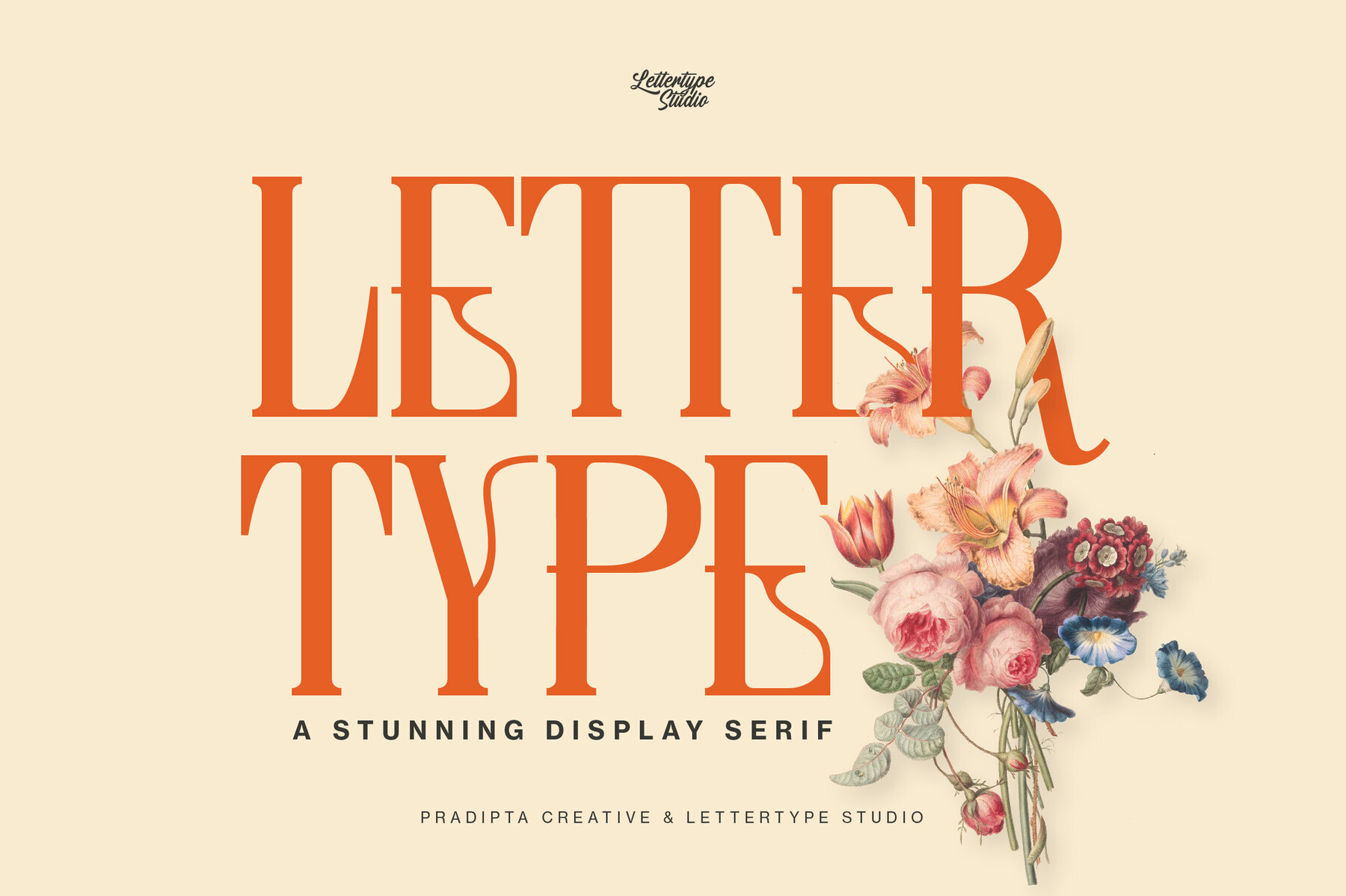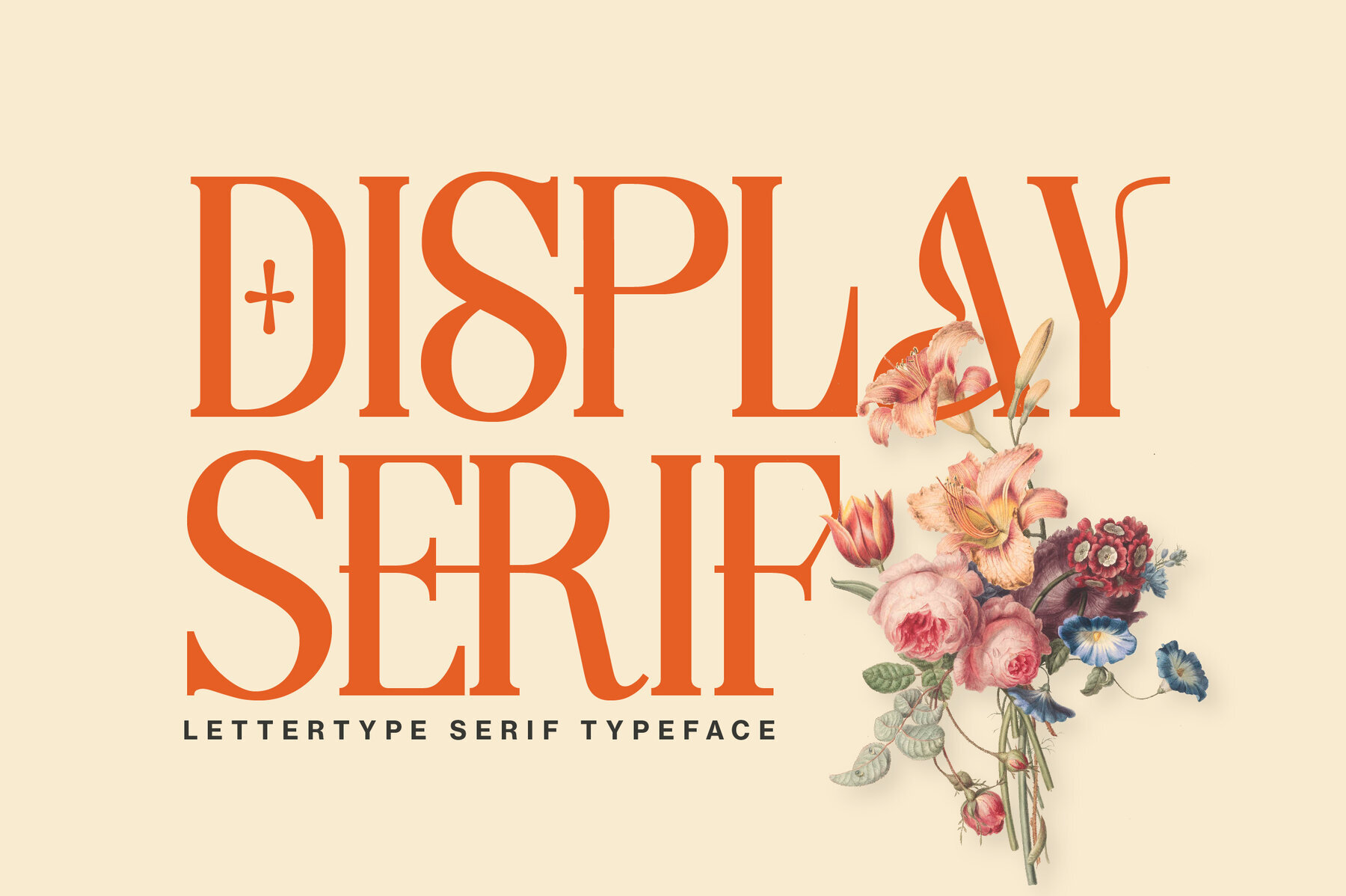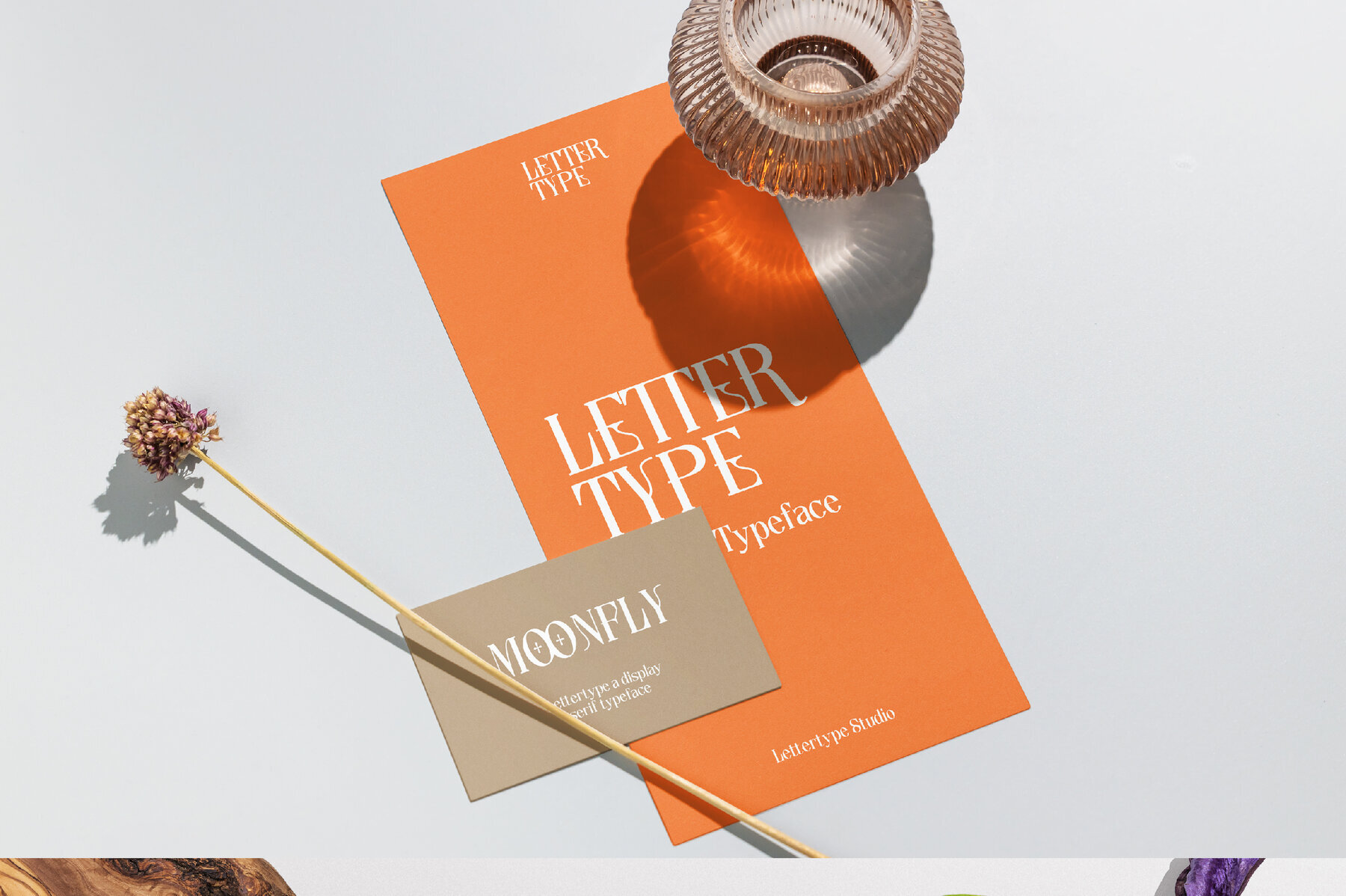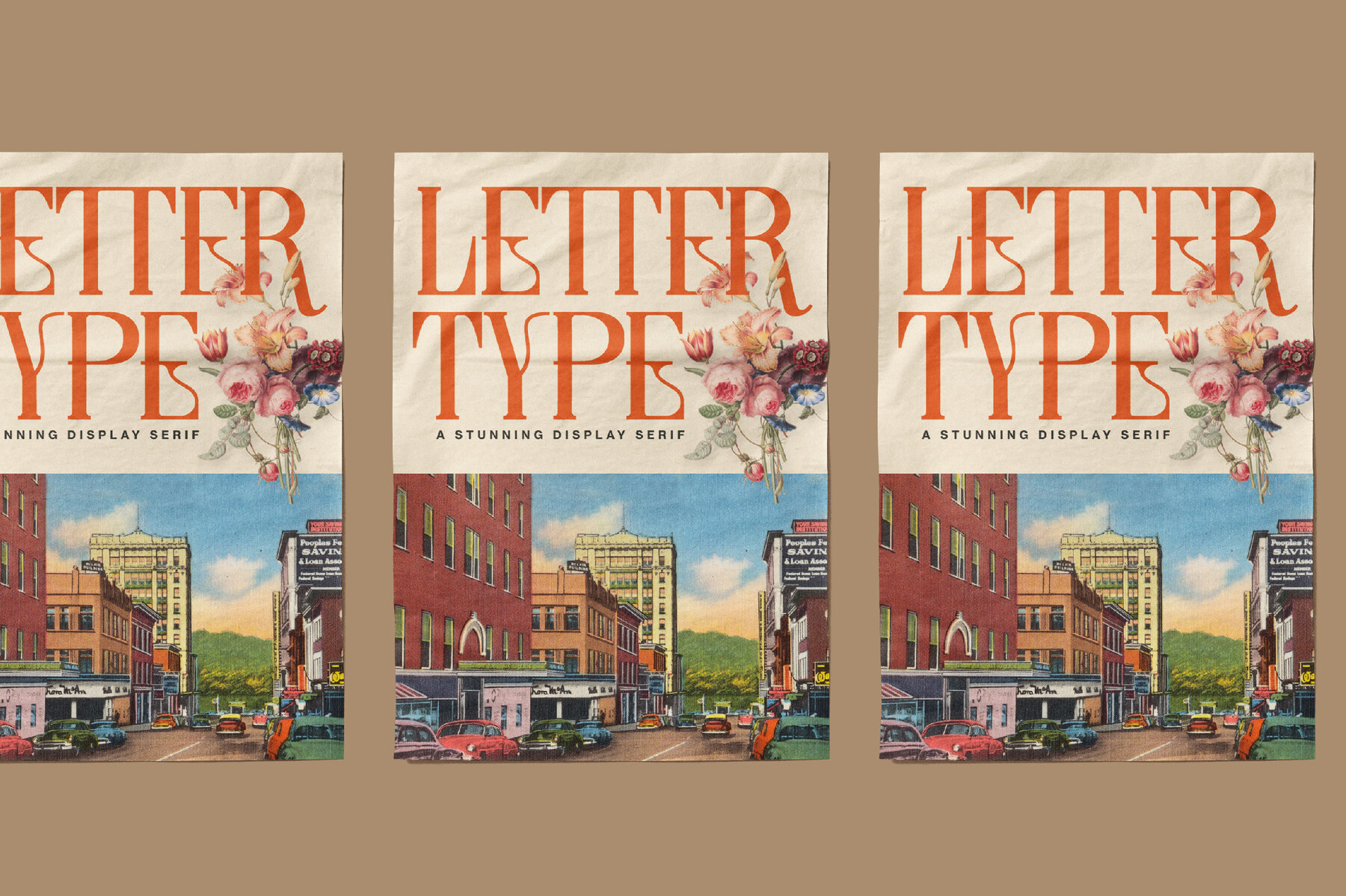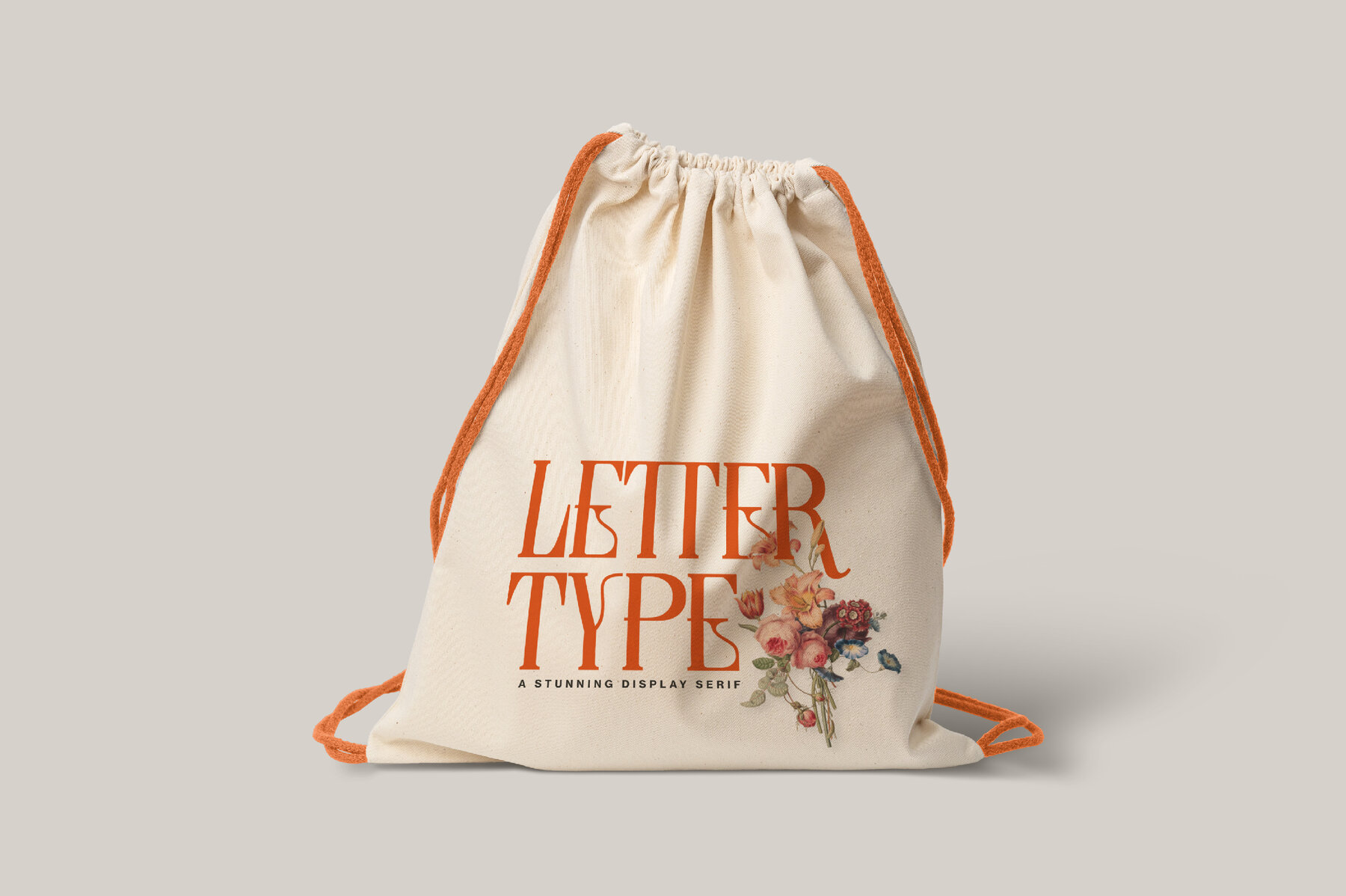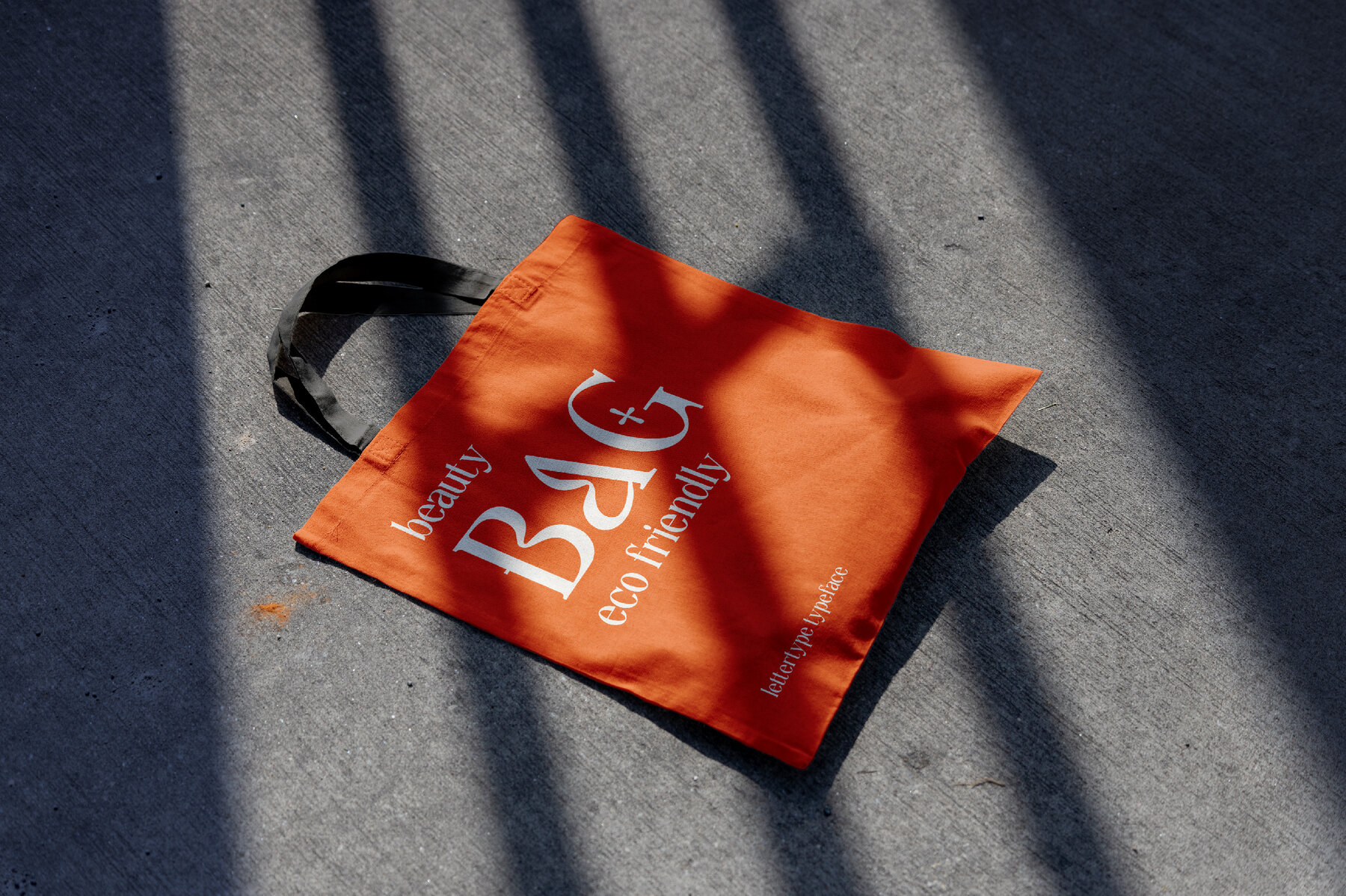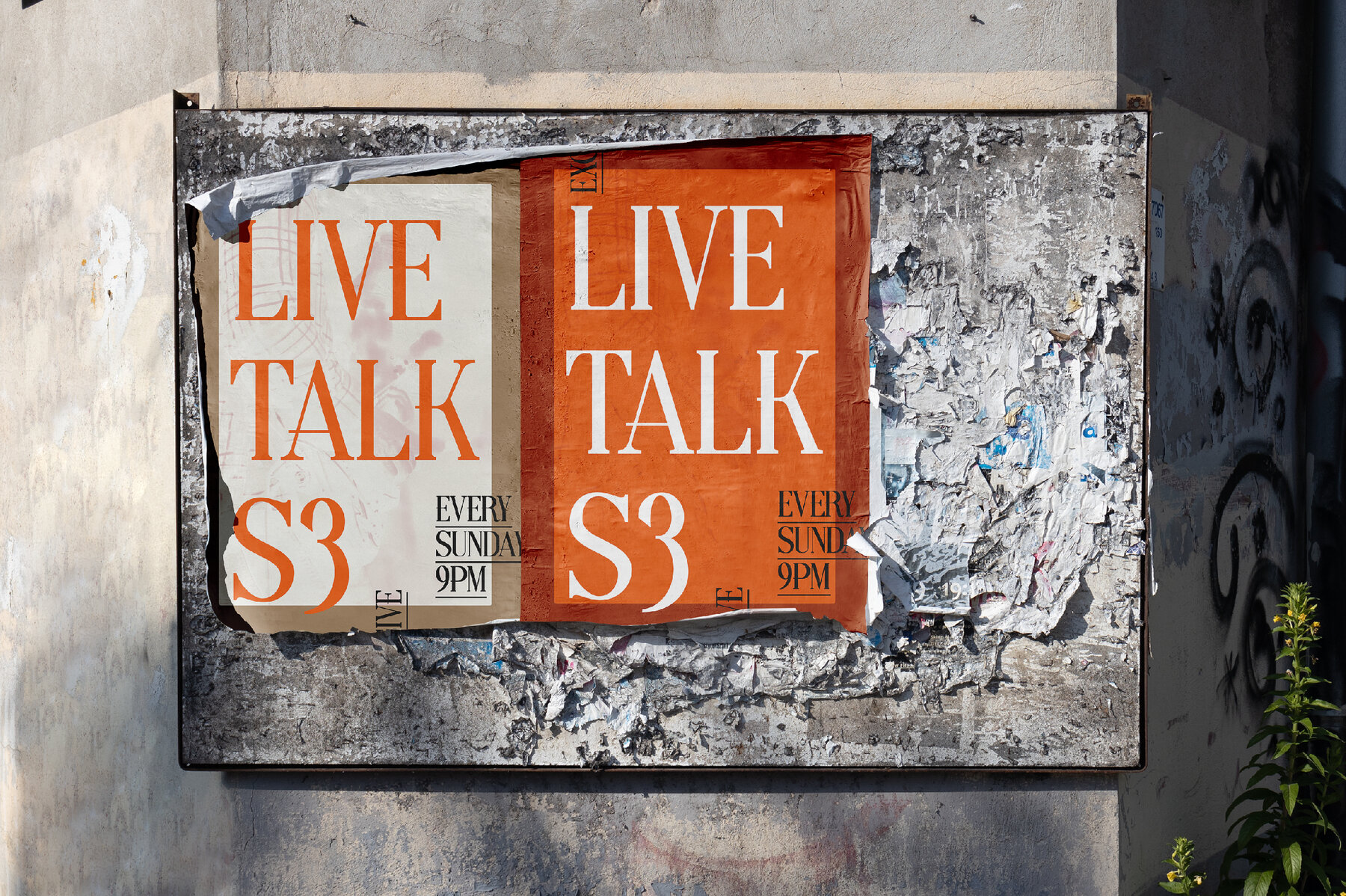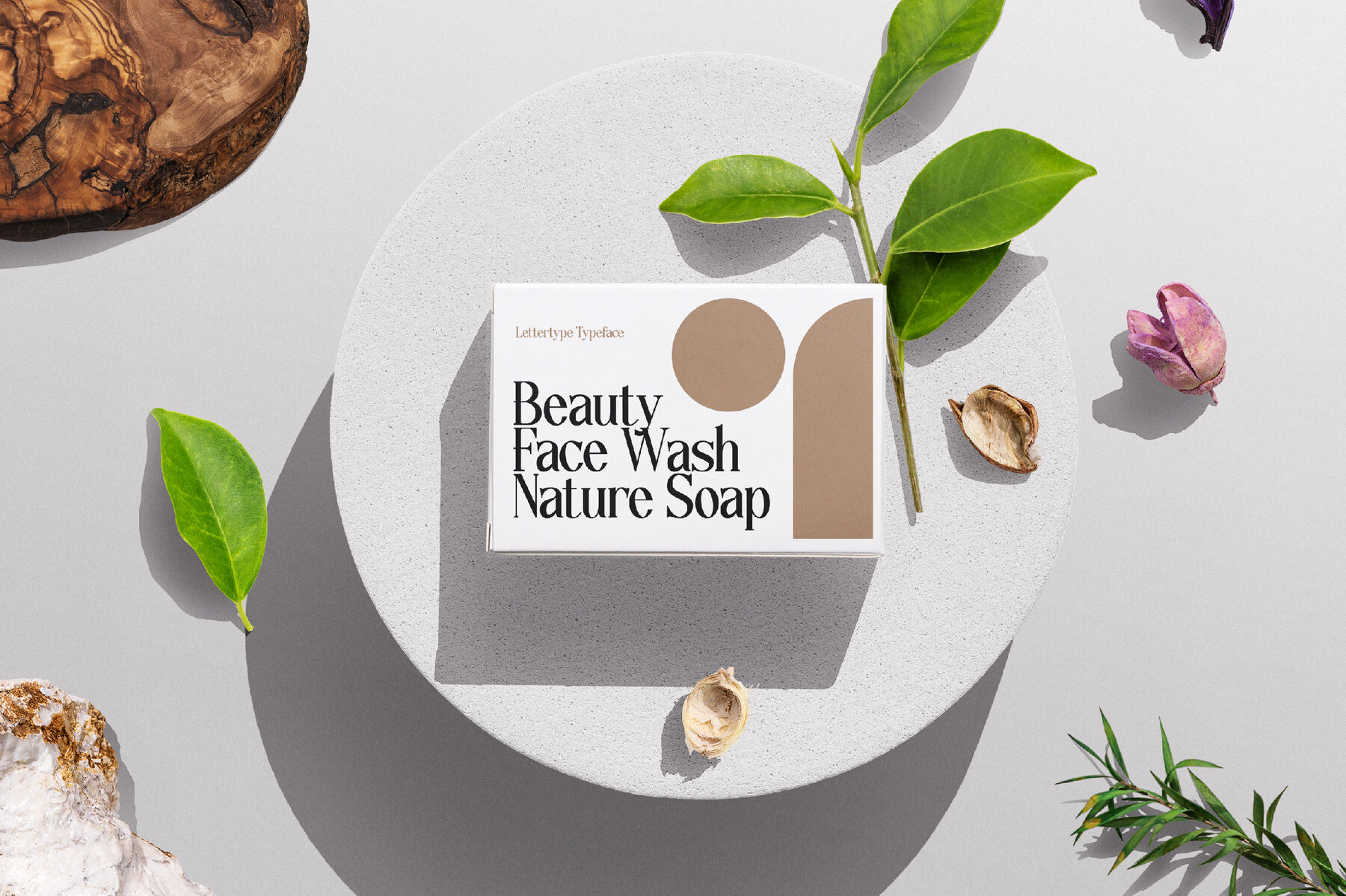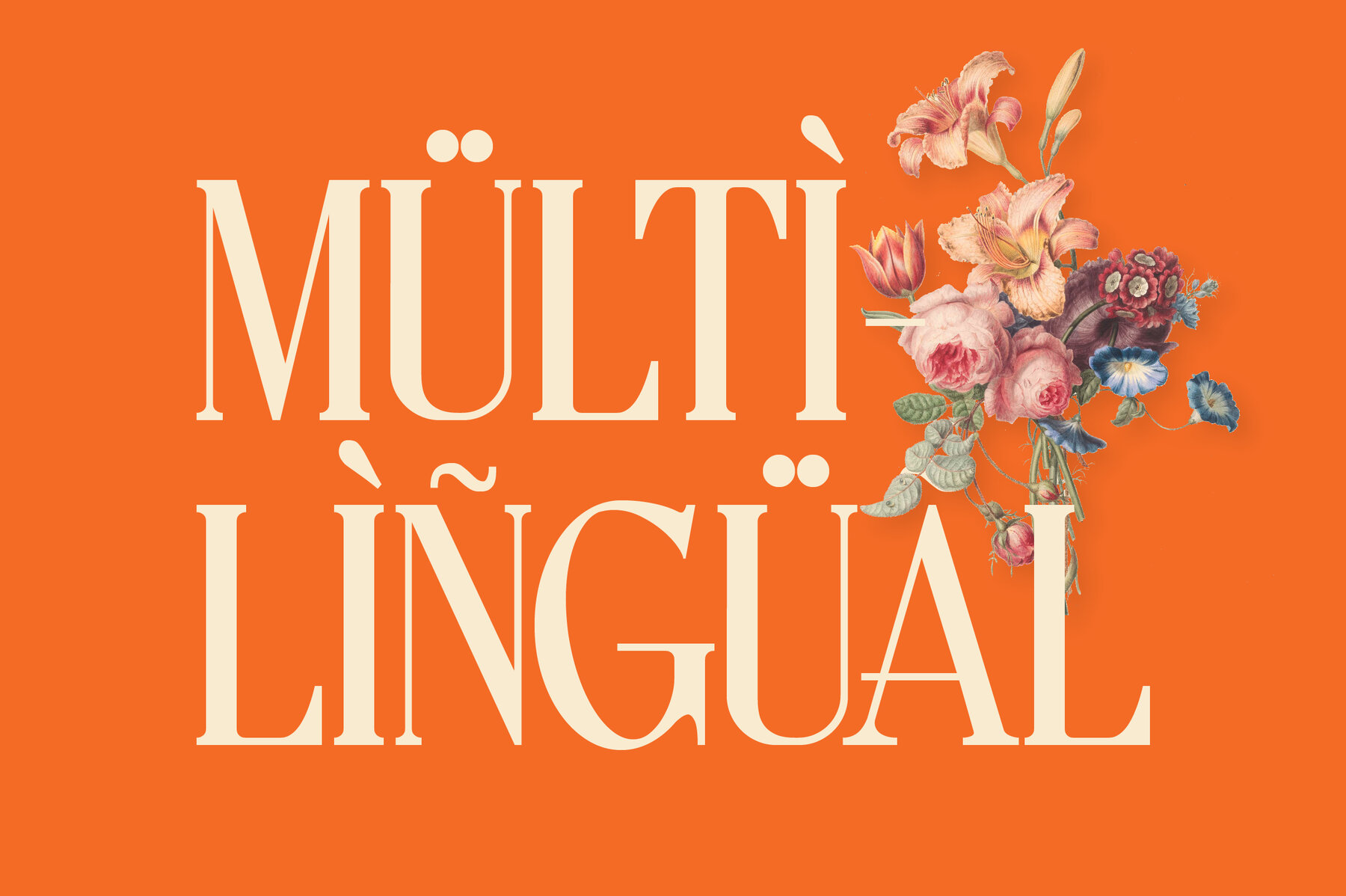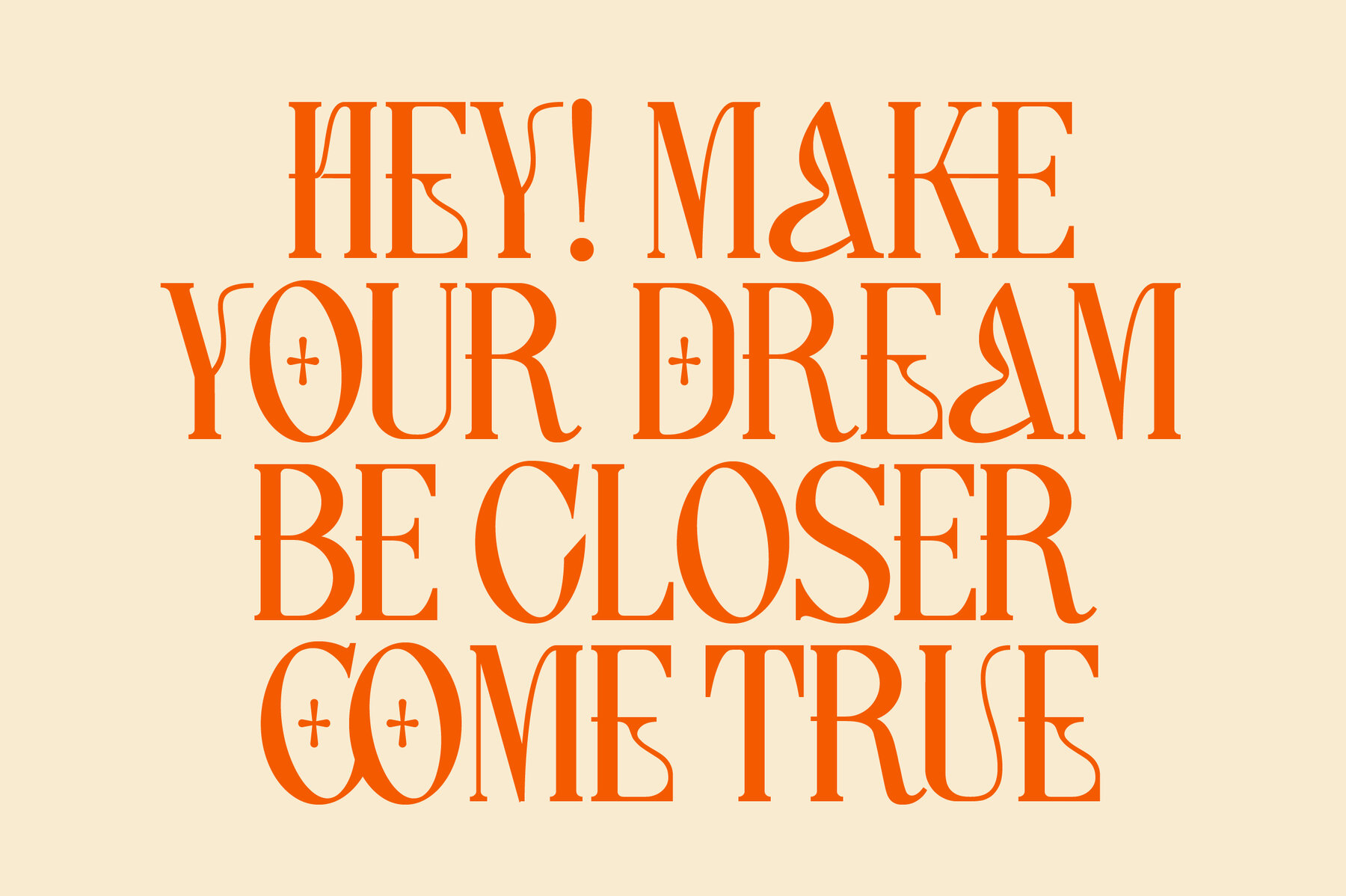
Lettertype Editorial Font
Lettertype, a magnificent display serif, artfully merges high-contrast sophistication with a nostalgic essence reminiscent of 90s magazine headlines. This stunning typeface draws inspiration from the realm of fashion editorials, bringing a luxurious and bold presence to your creative projects. With its elegant letterforms and a rich palette of stylistic alternates, Lettertype is designed for making impactful statements. Perfect for fashion branding, beauty packaging, logo design, and editorial layouts, Lettertype is your essential tool for enhancing visual allure. This versatile font family offers six unique styles, providing a wide array of creative possibilities for any design endeavor.Lettertype - Captivating Elegance and Nostalgia